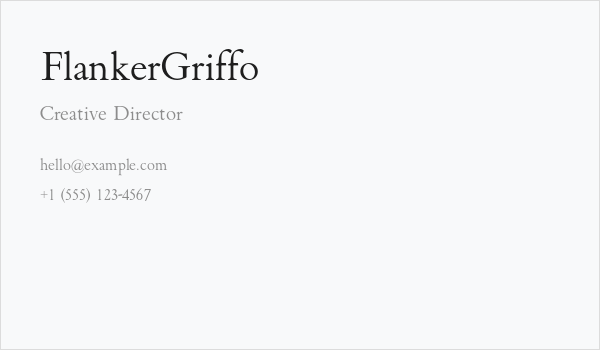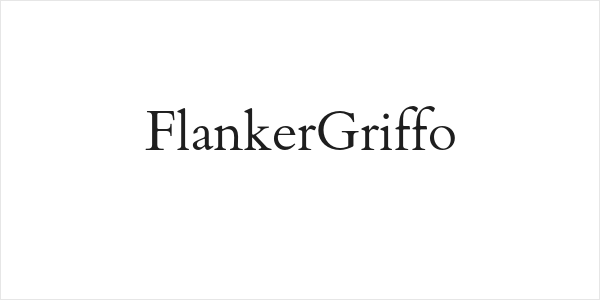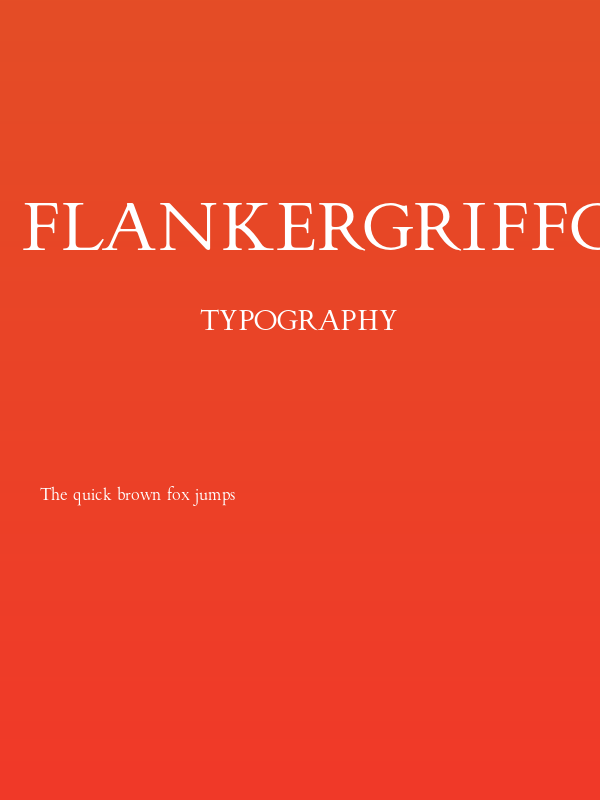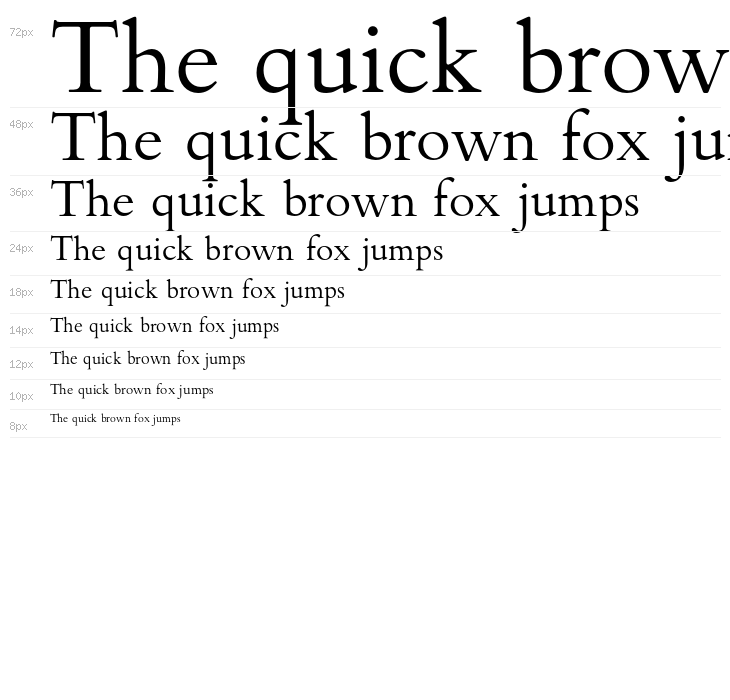
FlankerGriffo Font
FlankerGriffo Description
This font exhibits a classic serif style with elegant and refined strokes. The uppercase letters are well-proportioned, featuring slight variations in stroke width that add a touch of sophistication. The lowercase letters maintain a consistent style, with smooth curves and a balanced appearance. The numerals are clear and distinct, making them suitable for both display and text settings. Special characters are designed with attention to detail, ensuring they complement the overall aesthetic. This font is versatile, offering a timeless look that can enhance a variety of design projects.
Overall StyleClassic
Proposed ProjectsIdeal for editorial design, book covers, formal invitations, and branding materials.